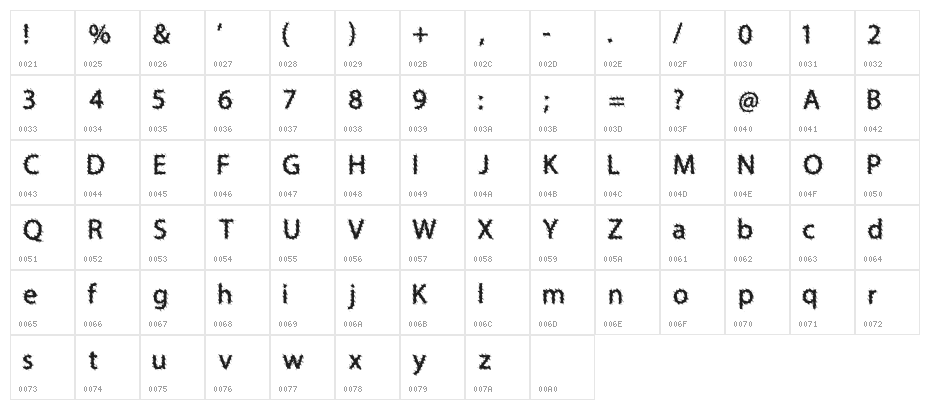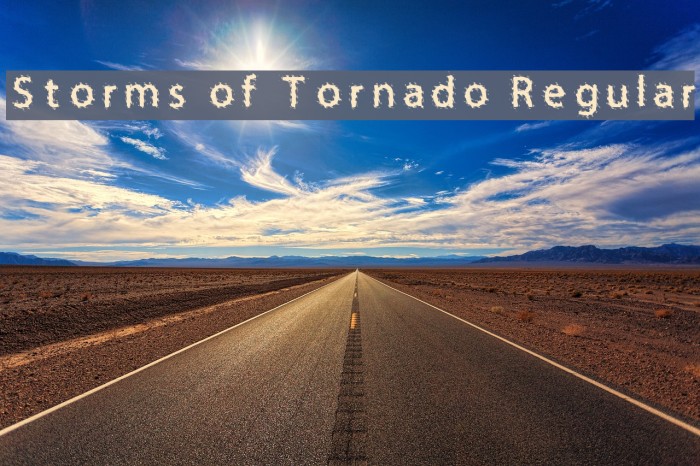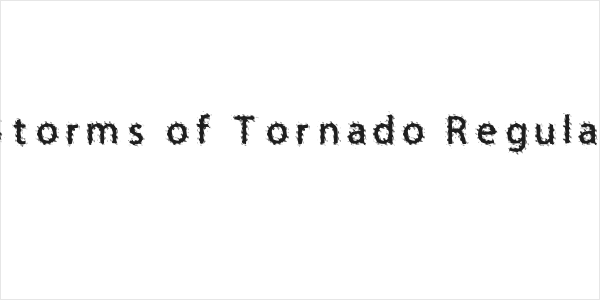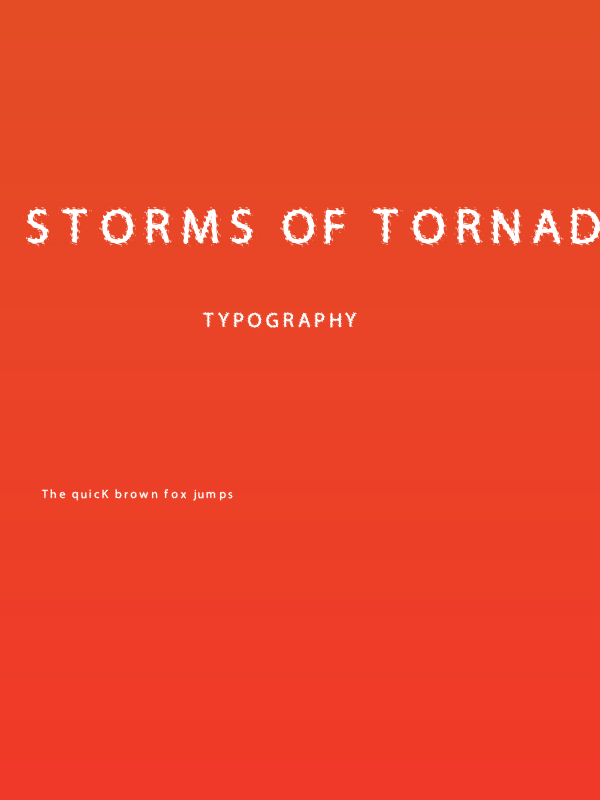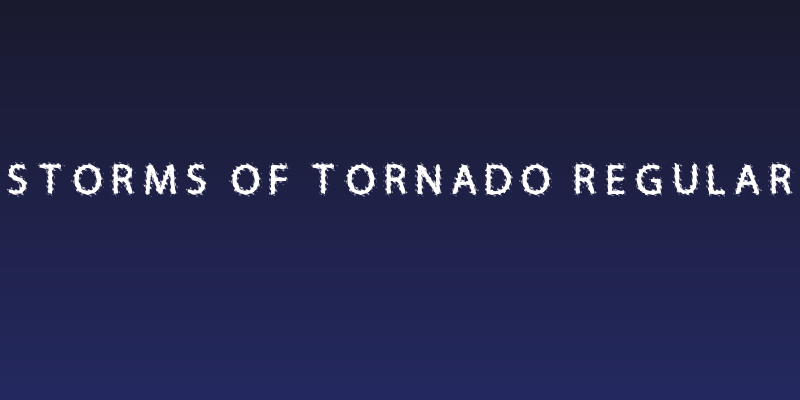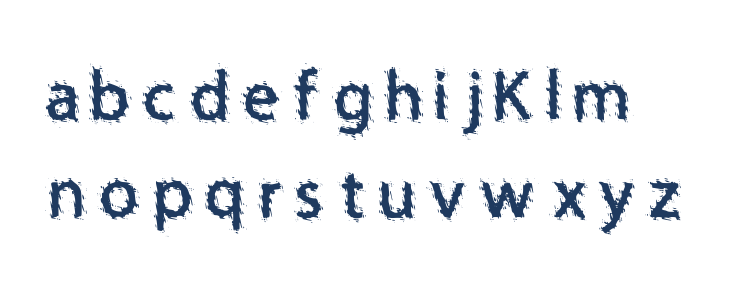
Storms of Tornado Regular Font
This font features a unique, distressed style that mimics the chaotic and unpredictable nature of a storm. Each character appears as if it has been weathered by strong winds, with jagged edges and an irregular outline. The uppercase and lowercase letters maintain a consistent height, providing a uniform appearance despite their rough texture. Numbers and special characters follow the same design, ensuring a cohesive look across all text elements. The font's bold presence makes it ideal for grabbing attention, while its distinctive style adds an element of intrigue and dynamism.
Proposed ProjectsPerfect for projects requiring a dramatic and eye-catching typeface, such as posters, album covers, or branding for edgy or adventurous brands.